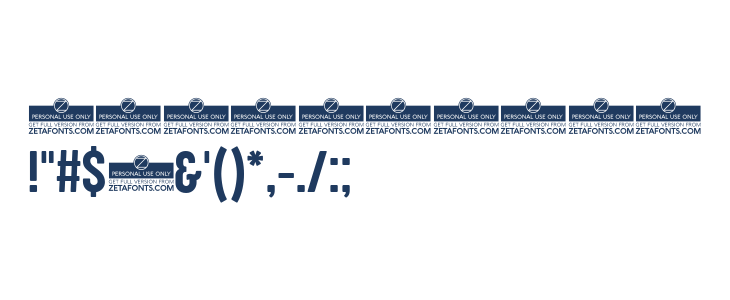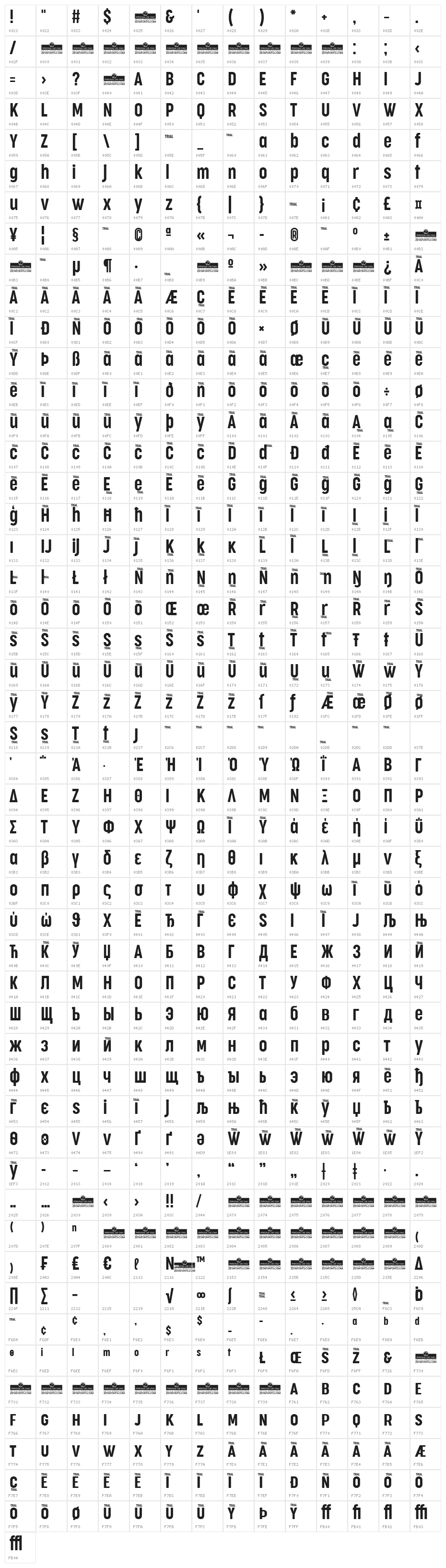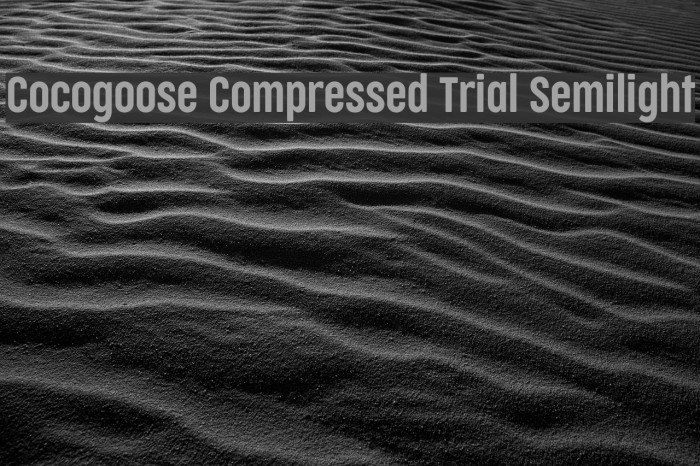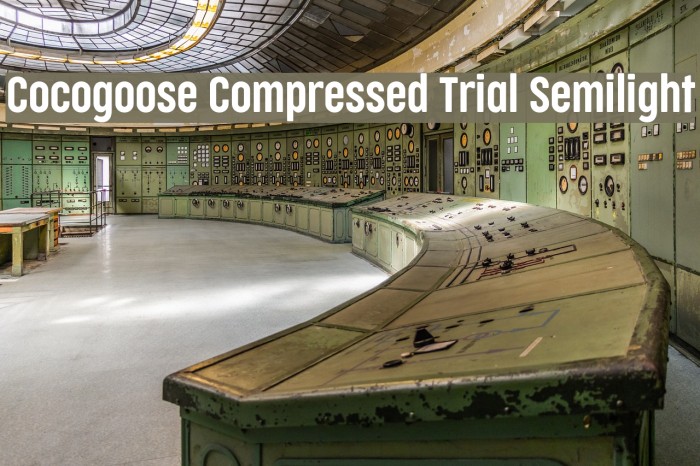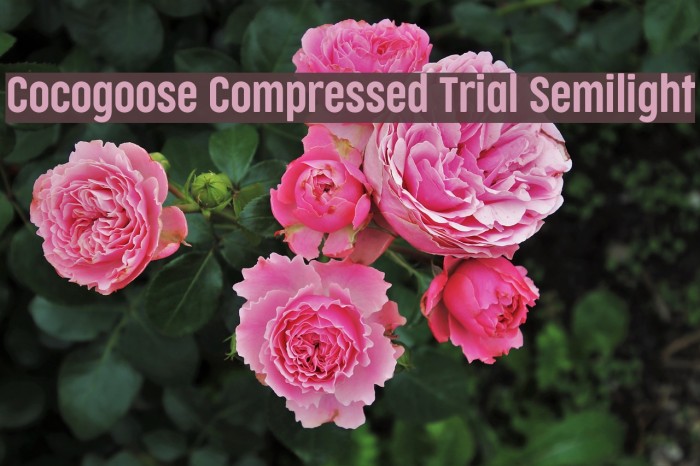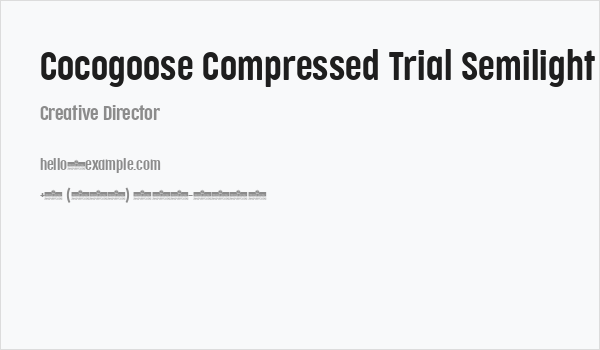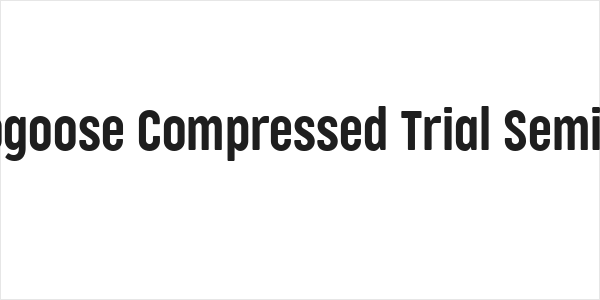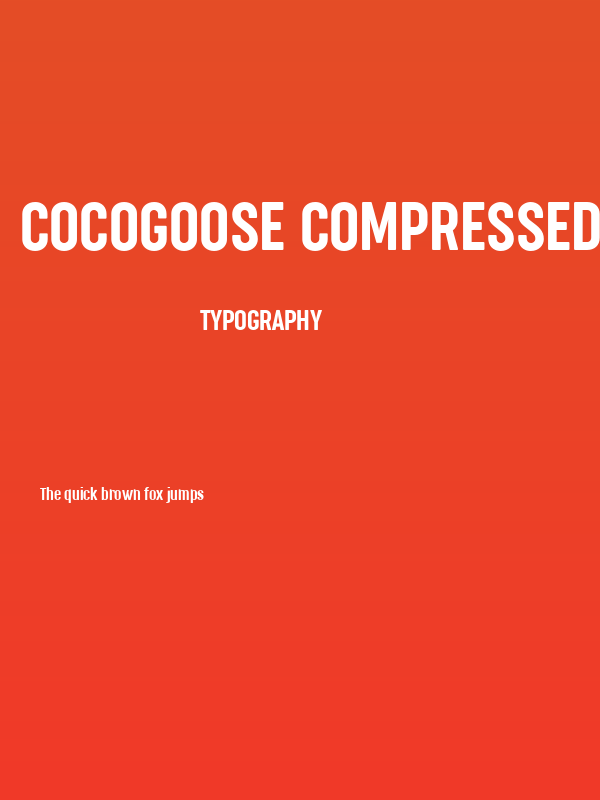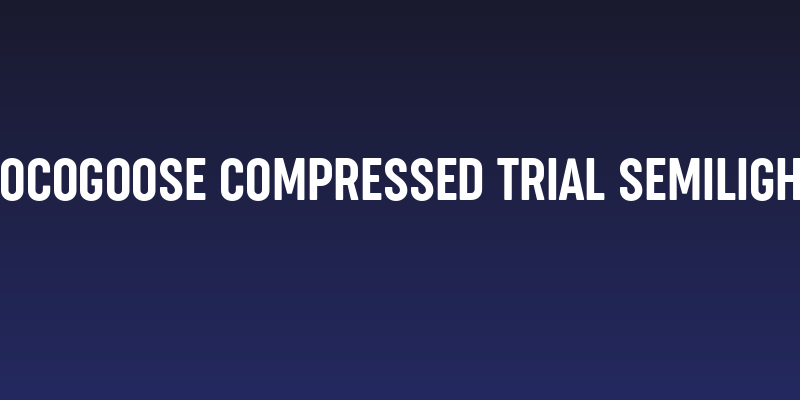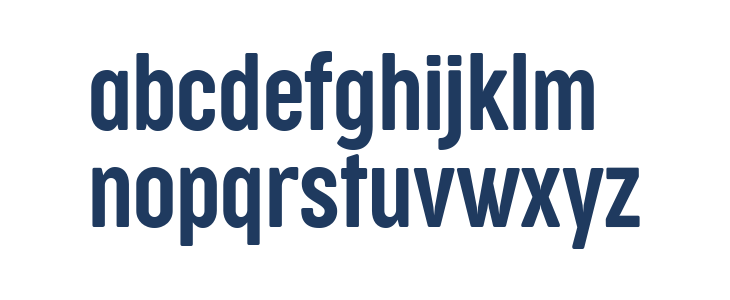
Cocogoose Compressed Trial Semilight Font
Cocogoose Compressed Trial Semilight Description
This font features a bold and modern sans-serif style with a compressed width, giving it a strong and impactful presence. The characters are clean and geometric, with uniform stroke widths that provide a consistent and professional look. The uppercase and lowercase letters maintain a harmonious balance, while the numerals and special characters are designed to complement the overall aesthetic. The font's simplicity and clarity make it suitable for a variety of design applications, from digital to print media.
| Proposed Projects | Ideal for branding, advertising, headlines, and digital media where a strong, modern impression is desired. |